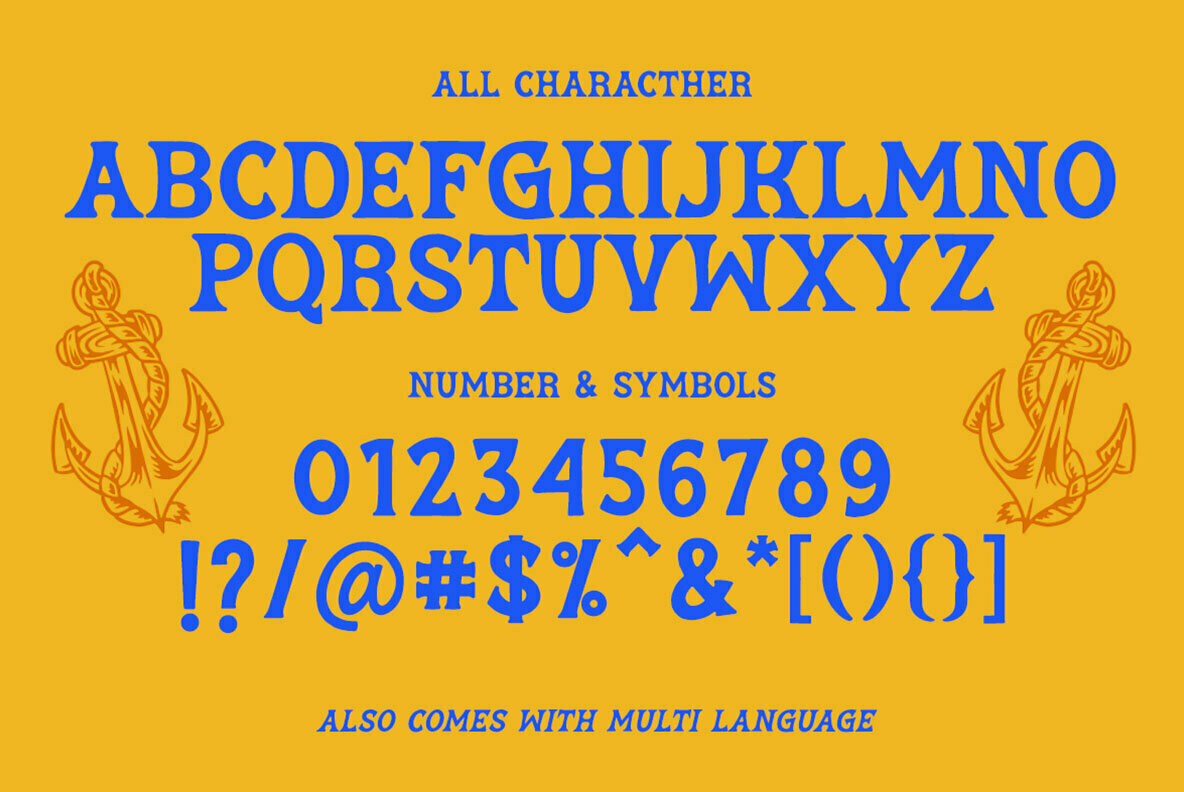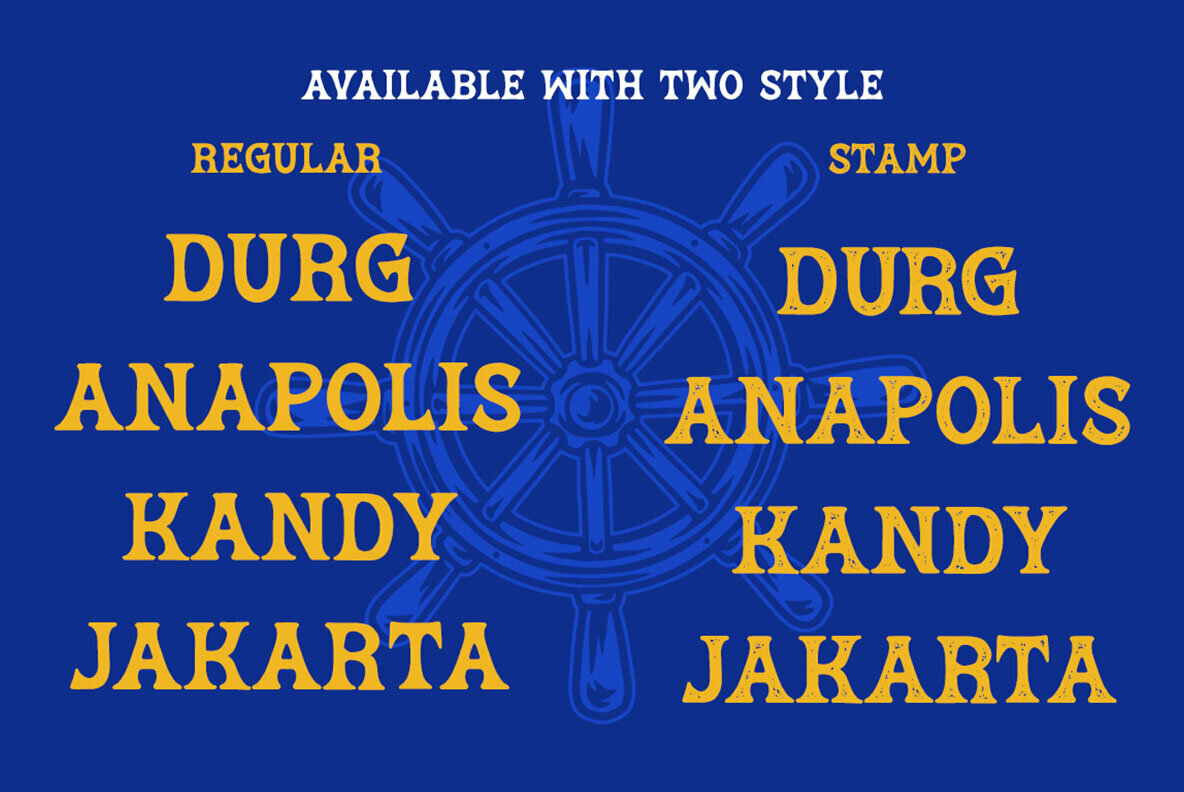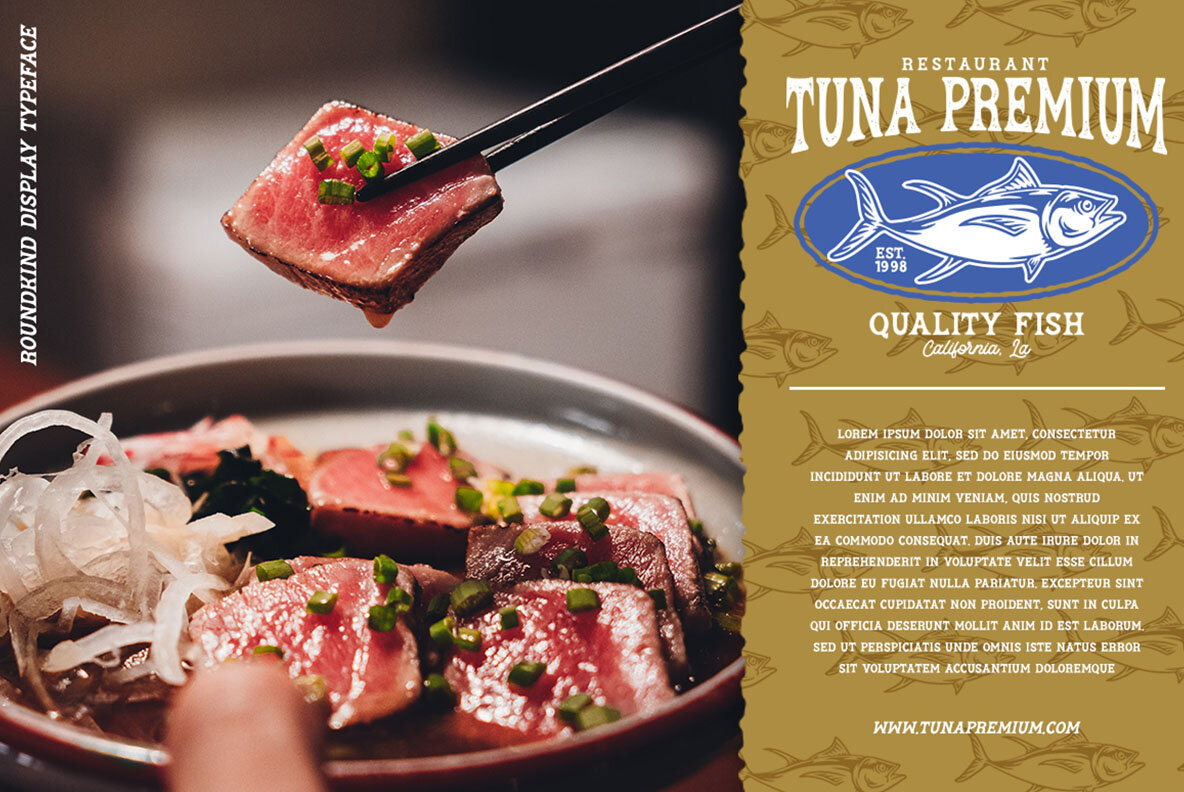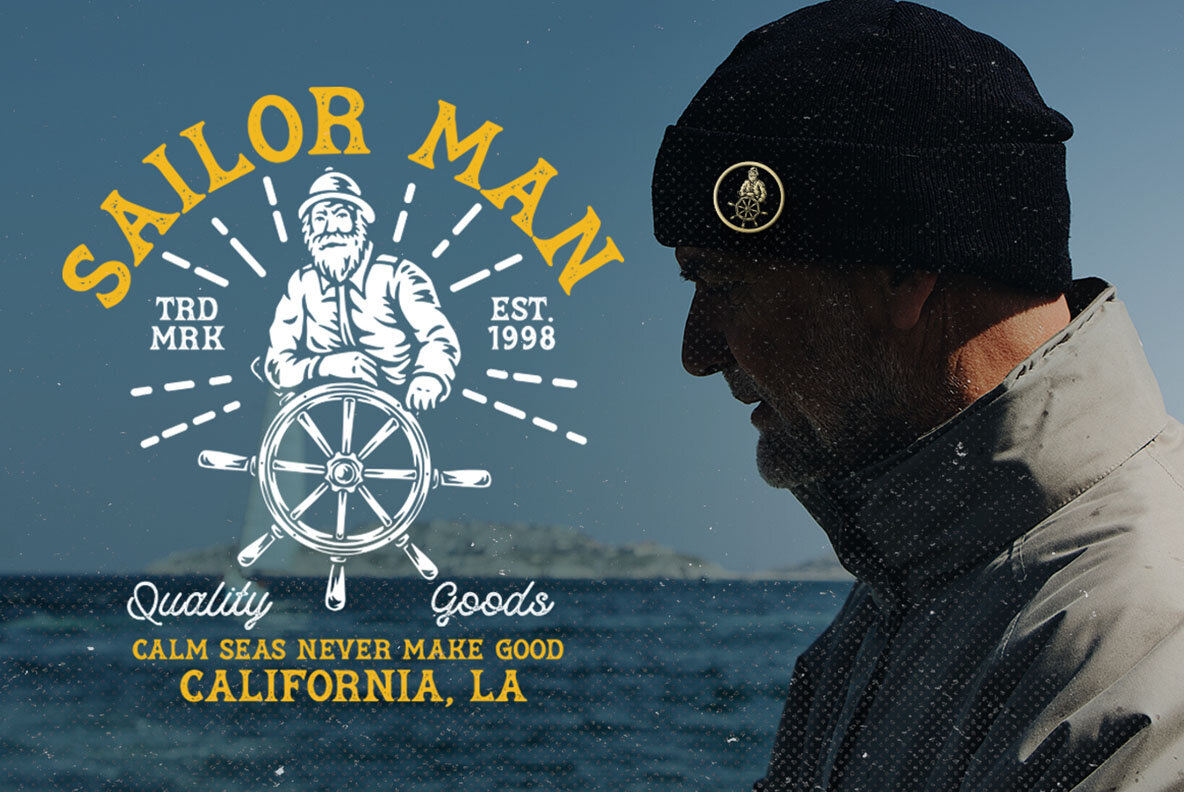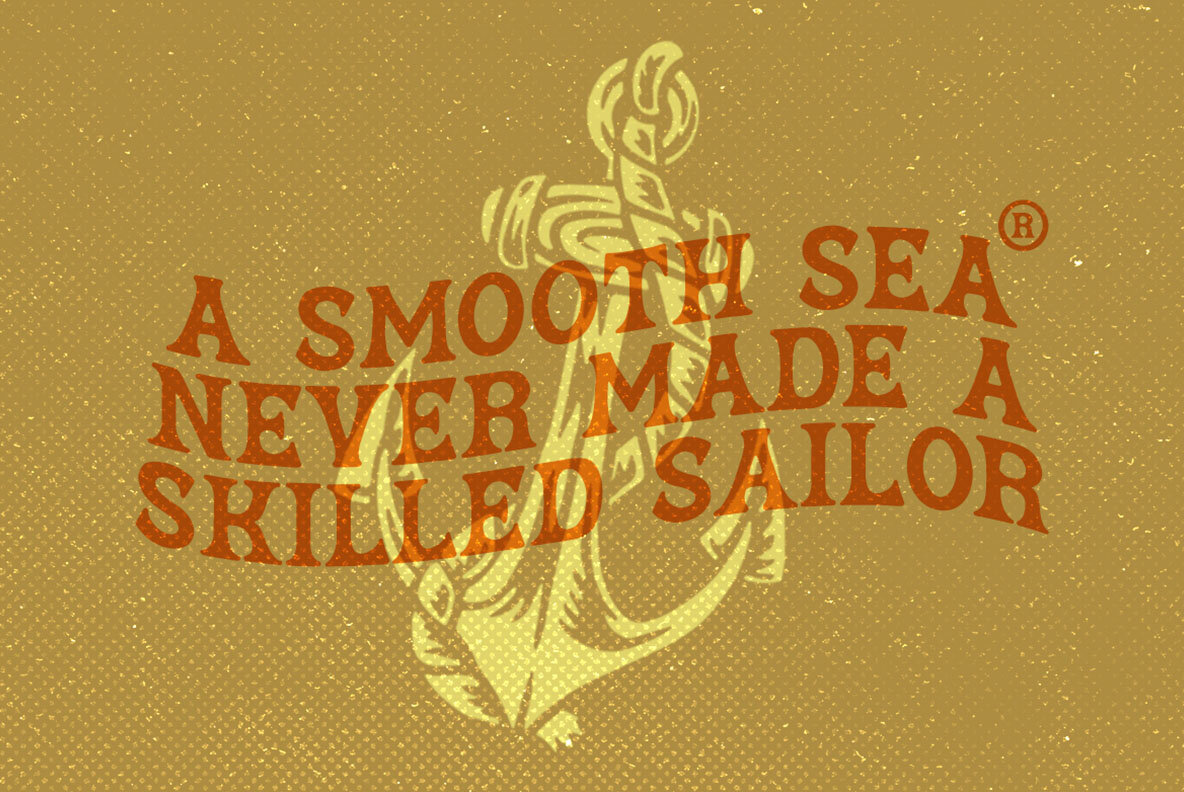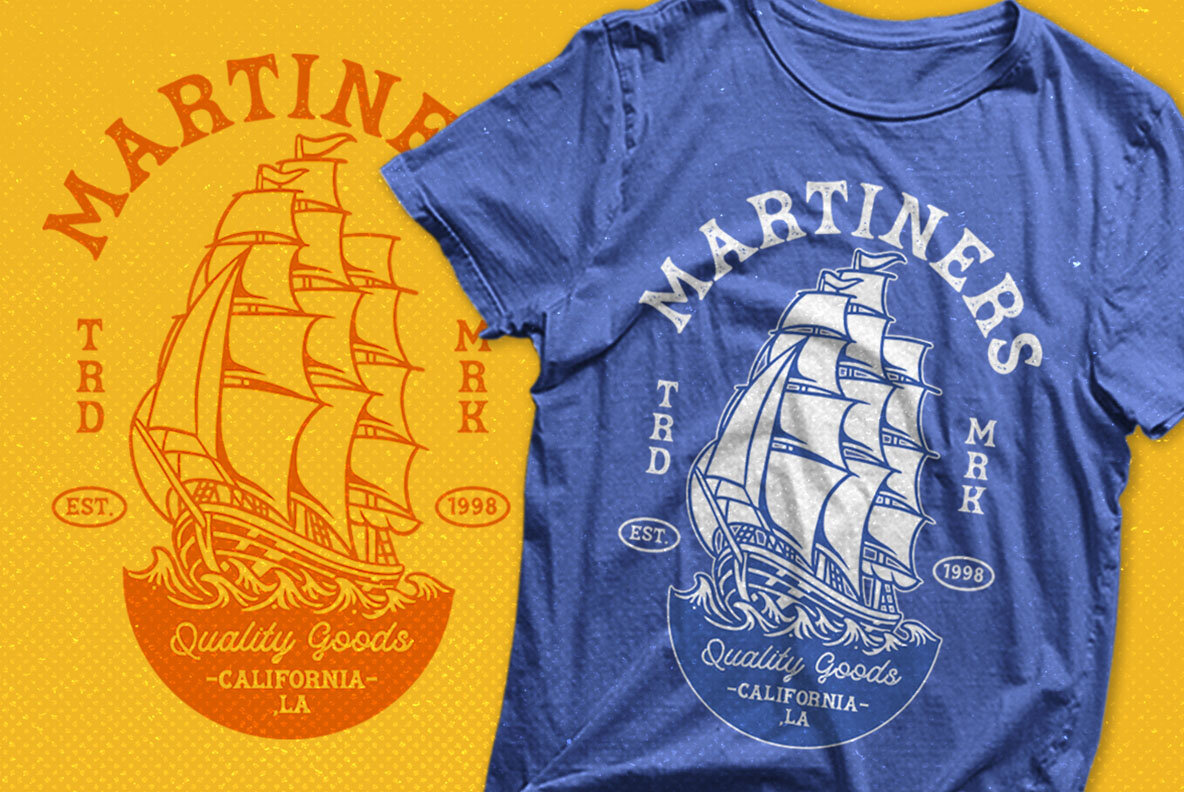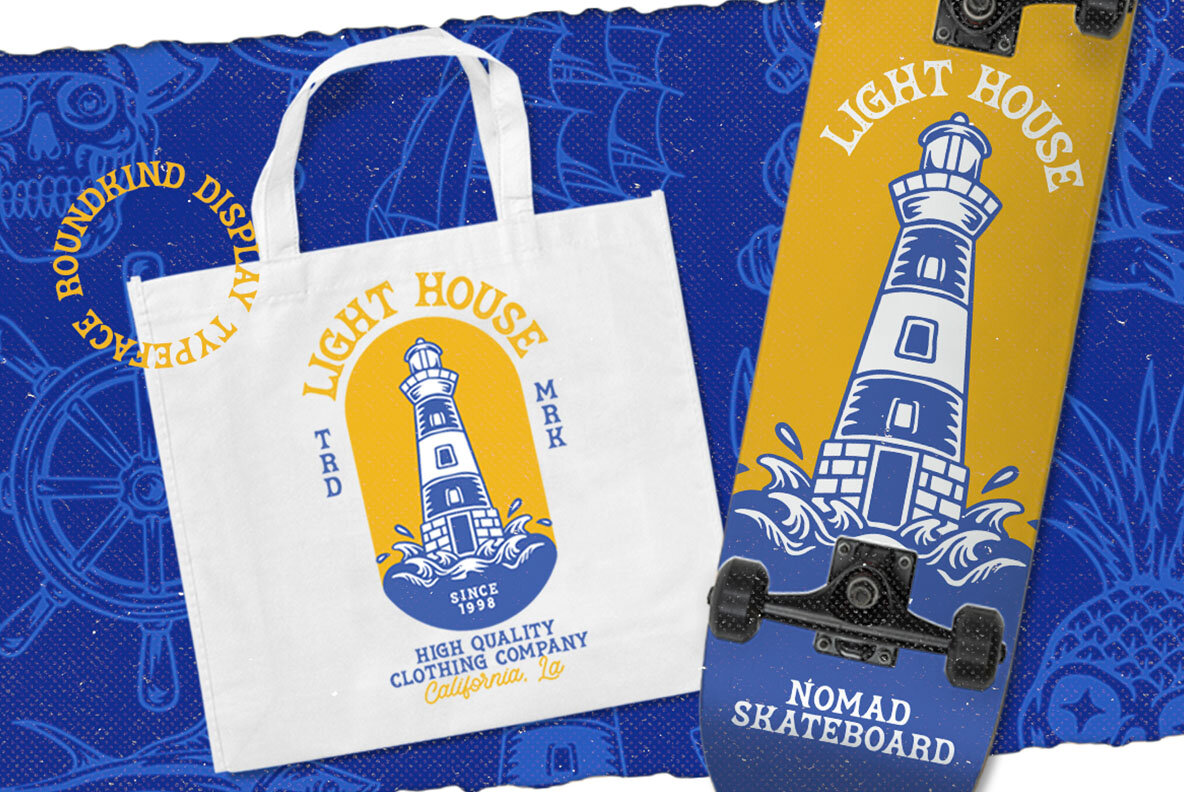
Round Kind Font
Round Kind by Letterhend Studio marries nostalgic charm with a modern, luxurious aesthetic. This vintage display typeface is crafted for versatility in formal design applications, showing exceptional strength in logos, invitations, and advertising materials. Its unique character is further complemented by a bonus illustration pack, offering a complete creative toolkit. For seamless integration of OpenType features and glyph variations, use programs like Adobe apps or Corel Draw. This facilitates access to the full range of this typeface's capabilities, further enhancing your creative potential.Round Kind: Vintage Elegance for Modern Design